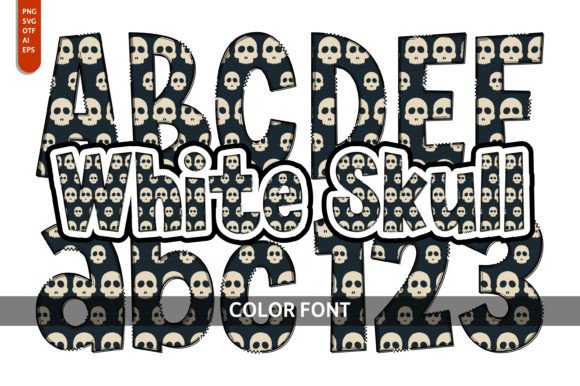
Prepare to be spooked by the bewitchingly charming White Skull font! This lively and playful color font is crafted to cast a spell of whimsy and eeriness upon your designs. White Skull is a font like a mischievous sprite, ready to add a touch of magic to your Halloween-themed projects, party invitations, and any creation that beckons for a playfully spooky twist.
Imagine conjuring up spine-tingling invitations adorned with White Skull's enchanting letters, promising a haunting yet delightful gathering. The font's dotted details are like twinkling stars in a midnight sky, adding a layer of intrigue and mystique to your creations. Your designs will emanate an otherworldly charm that captivates and enchants your audience.
White Skull's delightful personality makes it the perfect font for capturing the essence of Halloween and other spooky festivities. Its playful nature lends itself effortlessly to creating eye-catching posters, flyers, and social media graphics that are sure to turn heads and leave a lasting impression. Your designs will radiate a captivating energy that draws people in and keeps them spellbound.
With White Skull, you'll have the power to transform ordinary designs into extraordinary works of art. Its charmingly eerie vibe adds a touch of enchantment to your projects, making them stand out from the crowd. Embrace the hauntingly beautiful spirit of White Skull and let your creativity run wild.